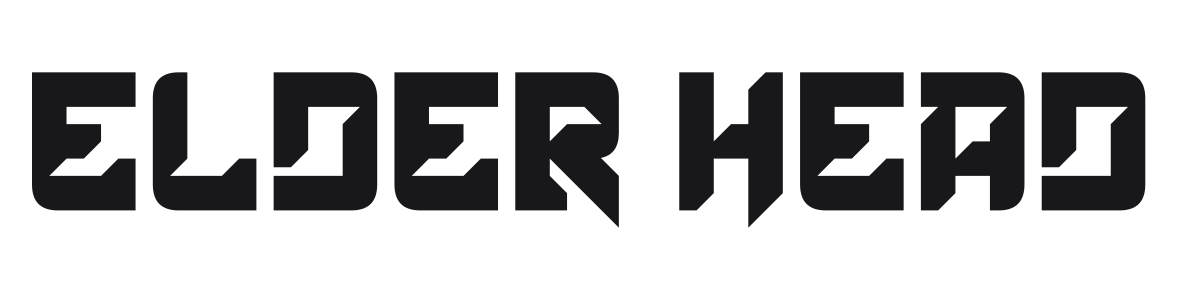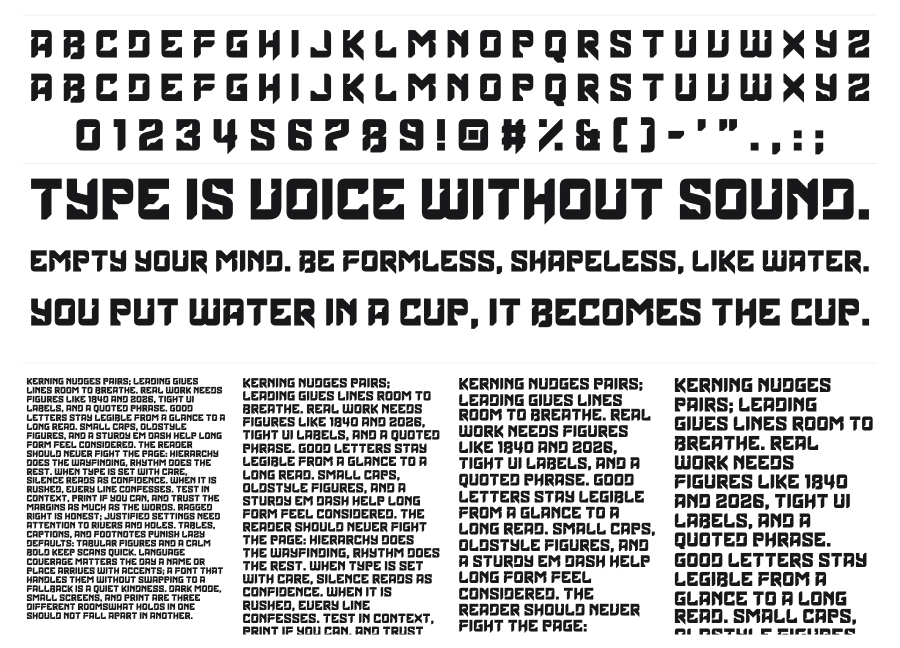
Elder Head
Elder Head is a heavy display font built around bold angular geometry and deep runic notches that evoke Norse or ancient inscription. The wide, blocky characters carry a chiseled authority that reads as both archaic and confrontational. It fits naturally in fantasy game titles, metal band logos, and any project that needs primal visual weight.